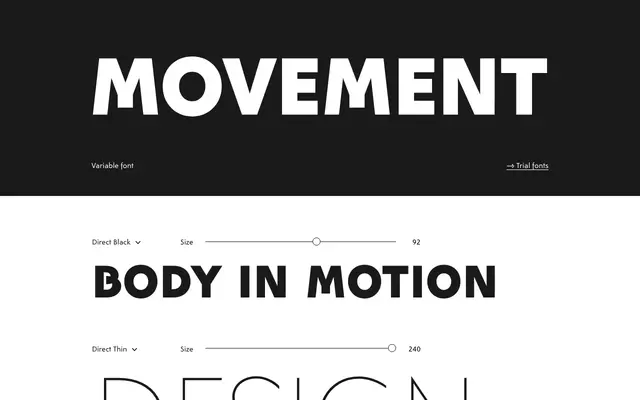
Movement
NM Type · Noel Pretorius & María Ramos · 2019
A free variable font by Noel Pretorius and María Ramos, built from the tracked movement paths of South African dancer Andile Vellem at Design Indaba 2019.
Commissioned in collaboration with Design Indaba, the typeface translates Rudolf Laban's movement theory into type: direct movement is rendered as bound, straight strokes; indirect movement as flexible, curved shapes. The variable font spans four design extremes — Direct Thin, Direct Black, Indirect Thin and Indirect Black — with continuous variation between them representing changes of movement through time. Available as a free download.
A display typeface with four design extremes across two axes (weight and directness of stroke), inspired by dance movement theory; the expressive, concept-driven letterforms place it firmly in the display category.